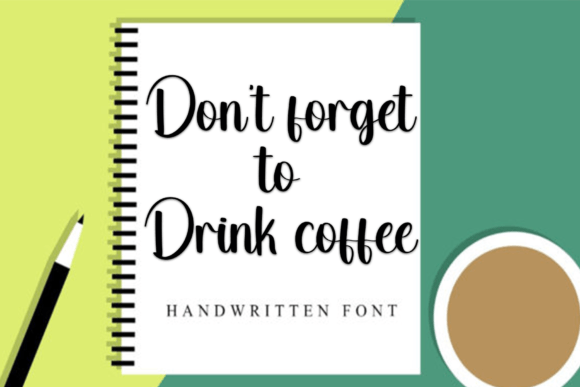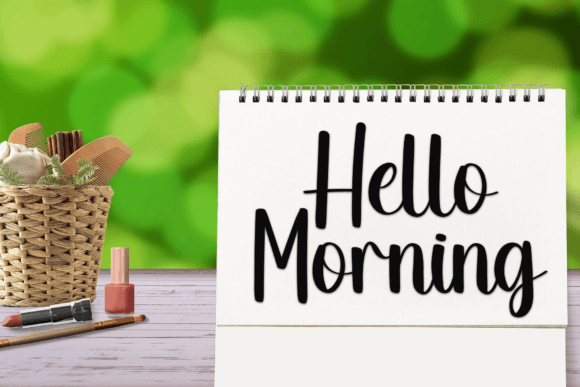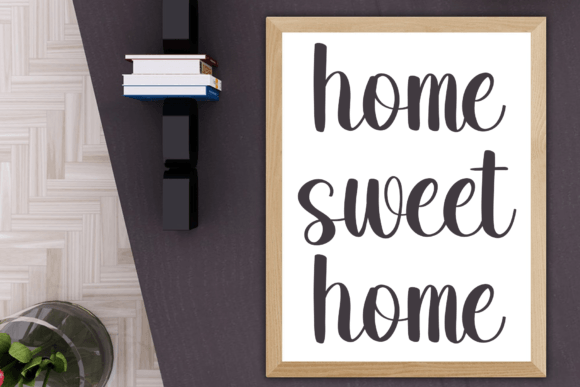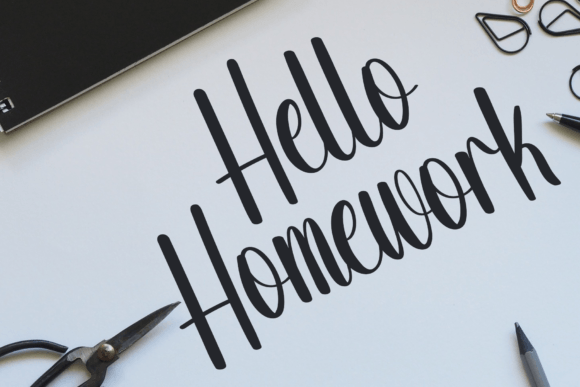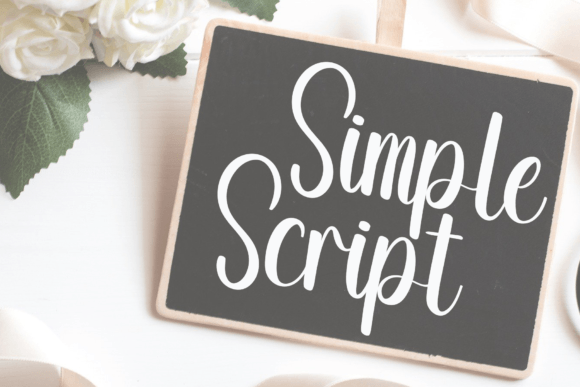
The Garbage Font: A Unique, Round-Lettered Handwritten Font for Creative Projects
I’ll never forget the time I was working on a project for a client who wanted a font that was both playful and elegant. I scoured the internet for hours, but nothing seemed quite right. That was until I stumbled upon the Garbage Font. This unique, round-lettered handwritten font has been a game-changer for my design projects, and I’m excited to share it with you today! 🎉
So, what do I love about the Garbage Font? Here are a few things that make it stand out:
- ✨ Unique and quirky design that’s perfect for creative projects
- 💕 Beautiful, hand-drawn feel that’s perfect for invitations, titles, and more
- 📝 Versatile and can be used for a wide range of projects, from digital to print
Of course, no font is perfect, and there are a few small quirks to be aware of:
- 🤔 Some letters may appear a bit inconsistent in terms of sizing and spacing, which can take some getting used to
- ⚠️ Limited availability of certain characters, such as accented letters or special symbols
The Story Behind the Garbage Font
The Garbage Font was designed by a creative team who wanted to create a unique and playful font that would stand out from the crowd. The team drew inspiration from handwritten letters and notes, and aimed to create a font that felt both personal and approachable. 💌
| Q: What type of projects is the Garbage Font best suited for? | A: The Garbage Font is perfect for creative projects, such as titles, invitations, letters, and more. |
| Q: Is the Garbage Font suitable for body text? | A: While the Garbage Font is highly legible, it’s best suited for headings and titles rather than body text. |
| Q: Is the Garbage Font available in different weights or styles? | A: The Garbage Font is available in a single weight, but it does offer some stylistic alternates and glyphs to add variety to your text. |